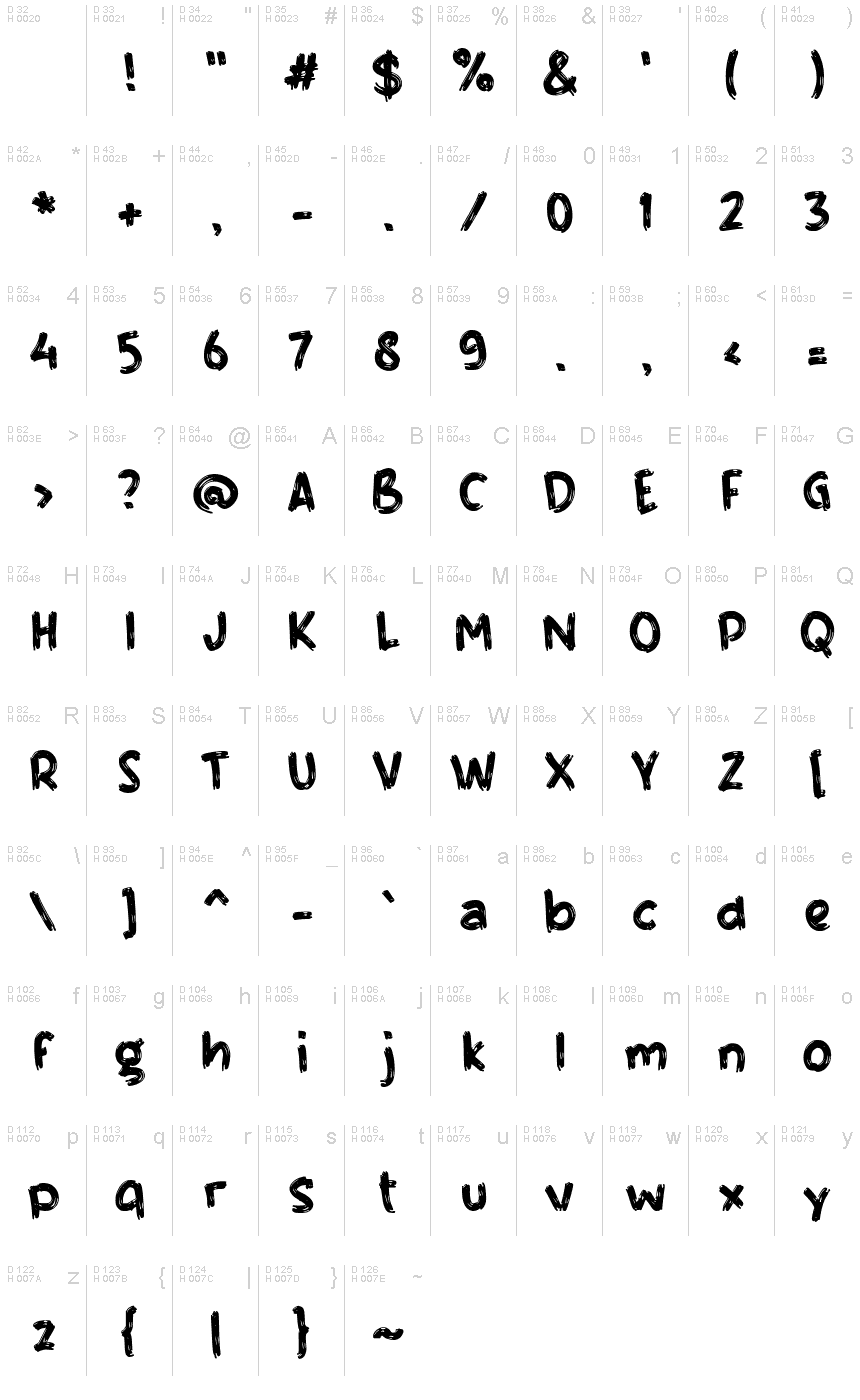
Everyday Yesterday
Everyday Yesterday, designed by wep, is a bold brush font that effortlessly adds a touch of artistic flair to any project. With its expressive strokes and organic texture, this typeface is perfect for crafting eye-catching logos and branding materials that exude creativity and authenticity. Its versatility makes it suitable for a range of projects, from contemporary fashion magazines to edgy music album covers. Whether you're designing posters or creating social media graphics, Everyday Yesterday will captivate your audience with its unique blend of modernity and classic brush aesthetics.